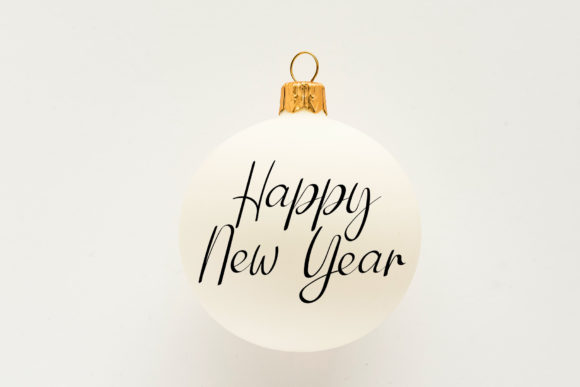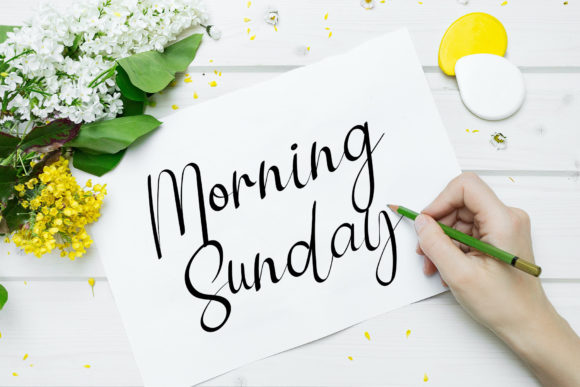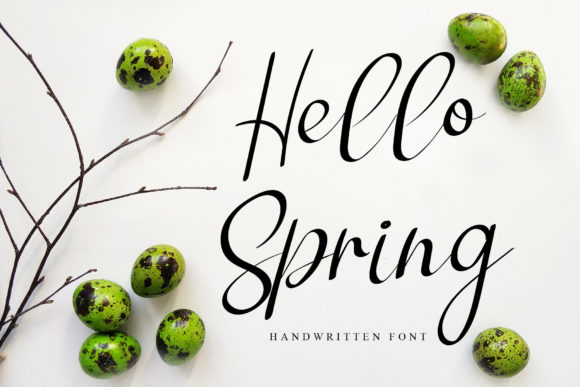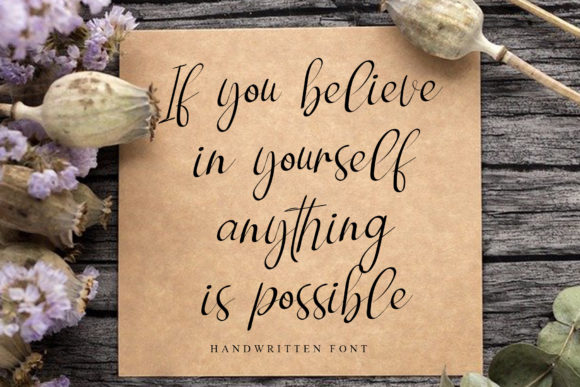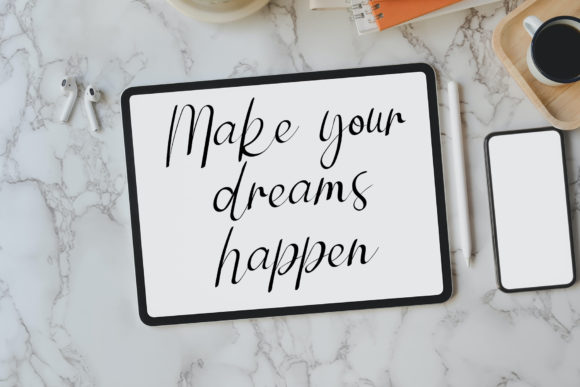
Summer Signature Font
Summer Signature is a flowing and thin script font. Featuring characters that dance along the baseline, this font will add a luxury spark to any design project that you wish to create!